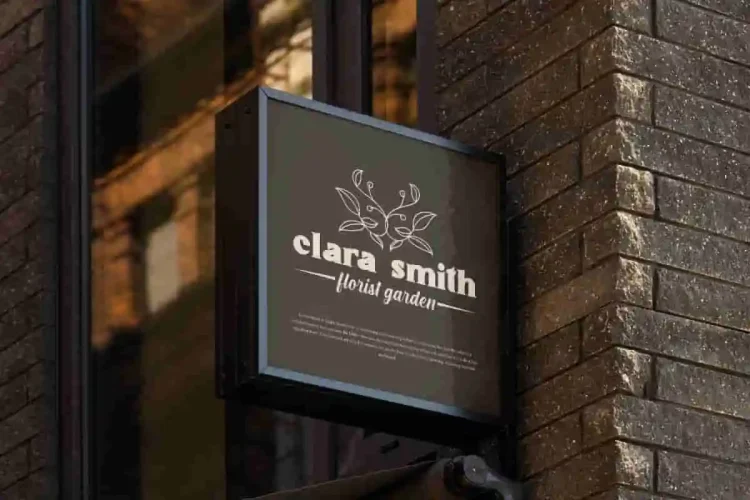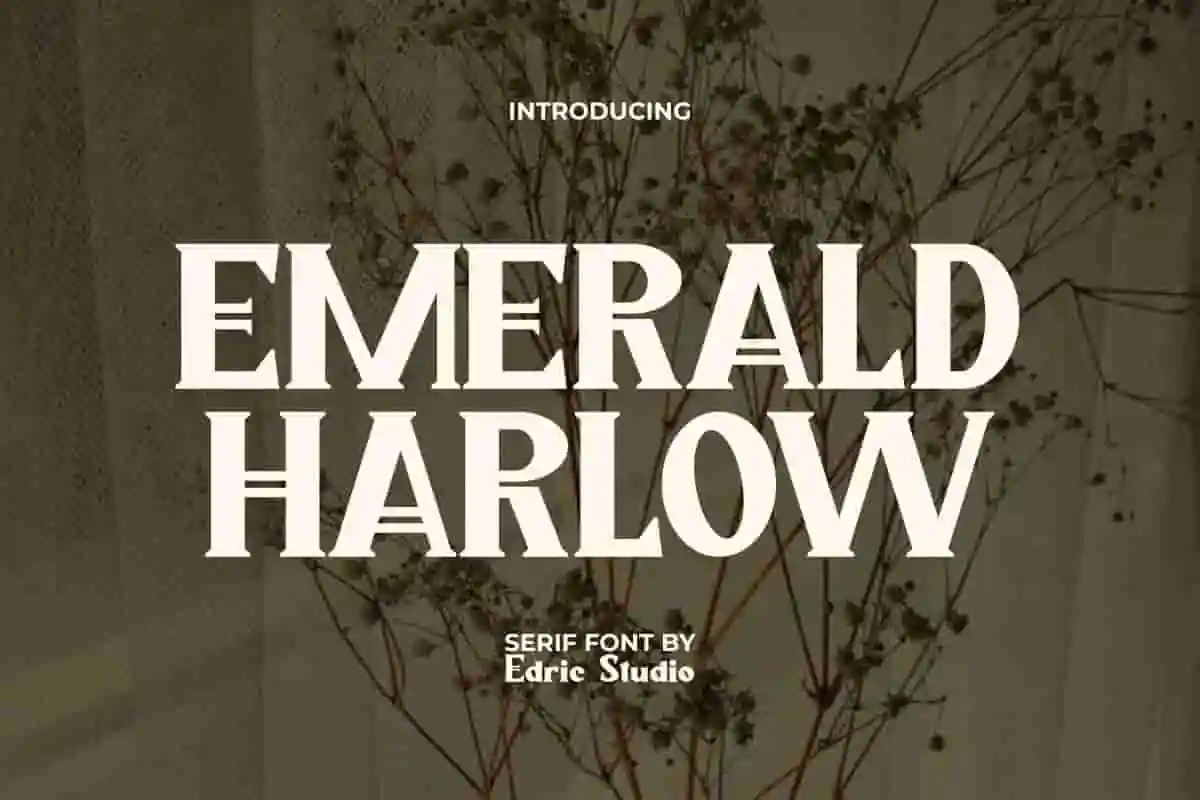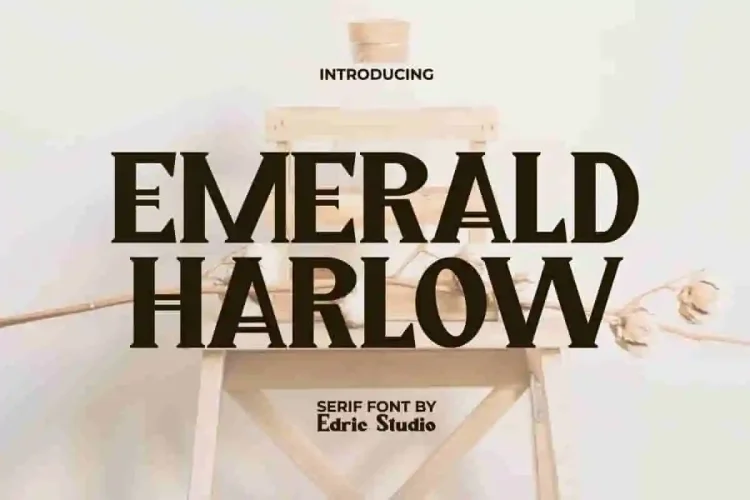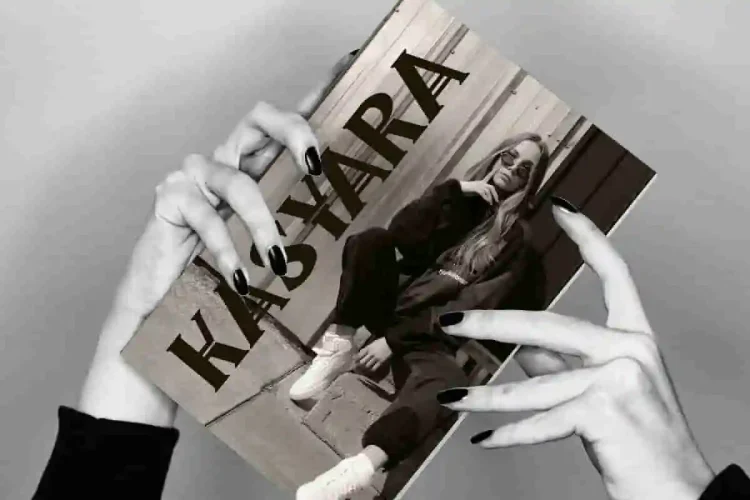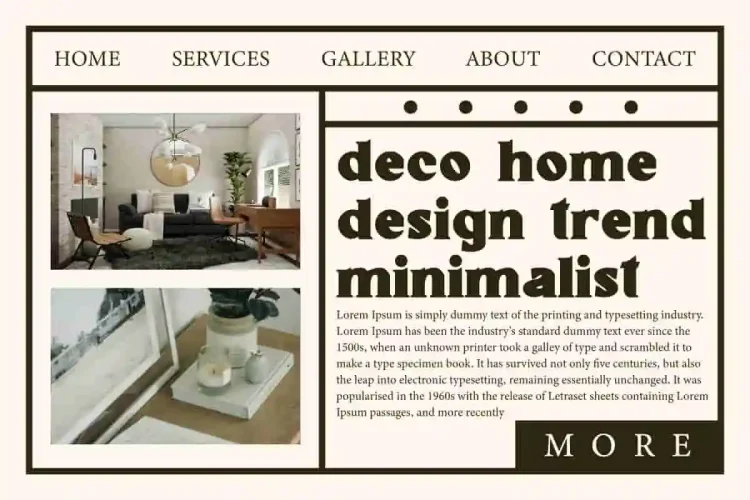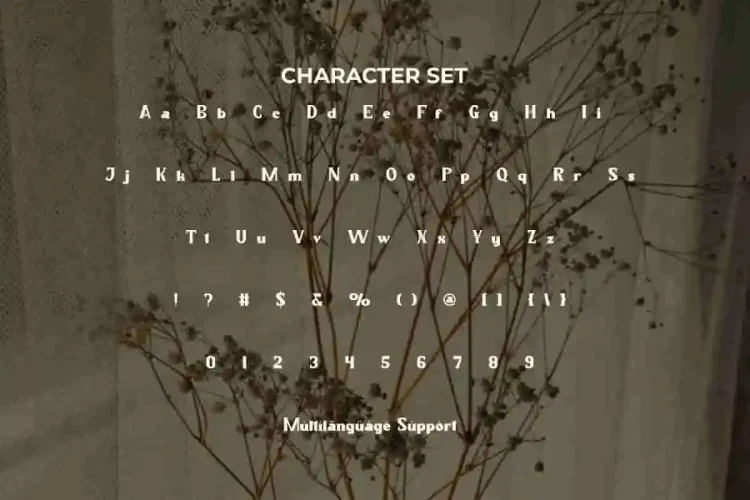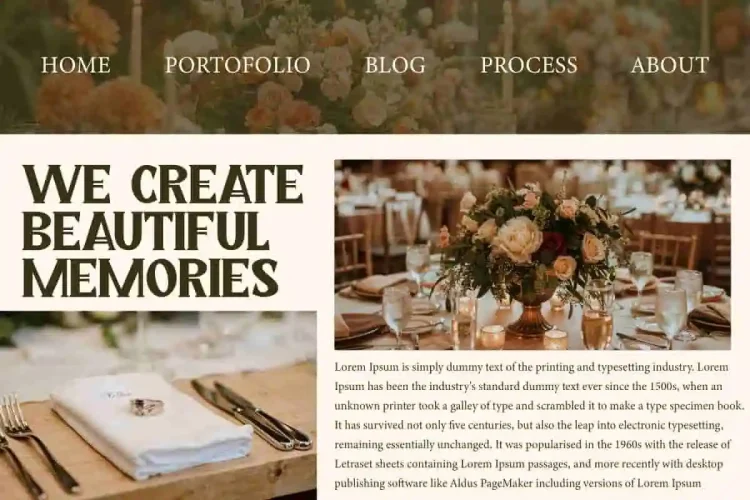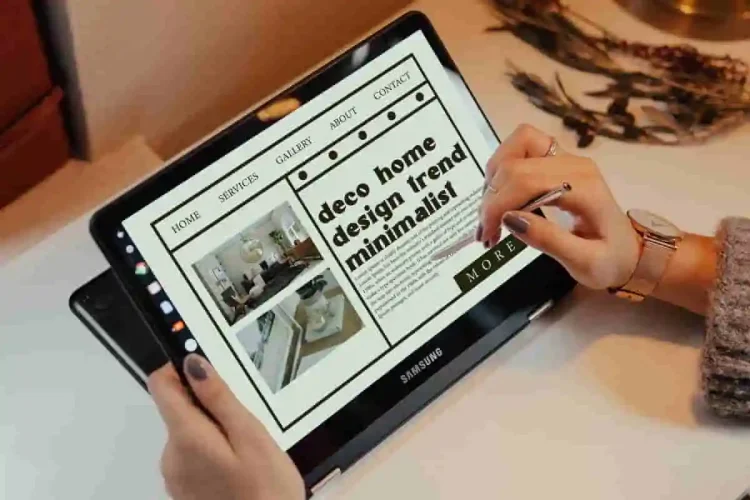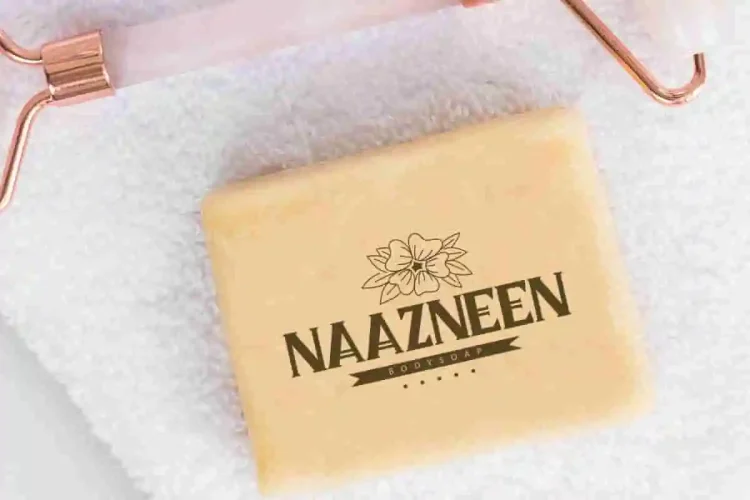
Emerald Harlow Vintage Font
Emerald Harlow Font is a unique vintage serif display font, with its different shapes and uniqueness in each letter. Making this font very suitable for your editing materials in any design project, such as album cover, banners, billboard, blogs, brochure, flyer, headers, headline, label, logo, magazine, mockup, poster, printed materials, signage, stickers, template, title, website, etc.
Emerald Harlow Font comes with a complete set of Uppercase and Lowercase Letters, Number, Punctuation, and Symbols. This typeface combines timeless sophistication with contemporary design, making it ideal for a wide range of creative projects. Perfect for advertising, florist, graphic designers, home furniture, interior design, photography, printing, publishing, web designer, writers, and others.